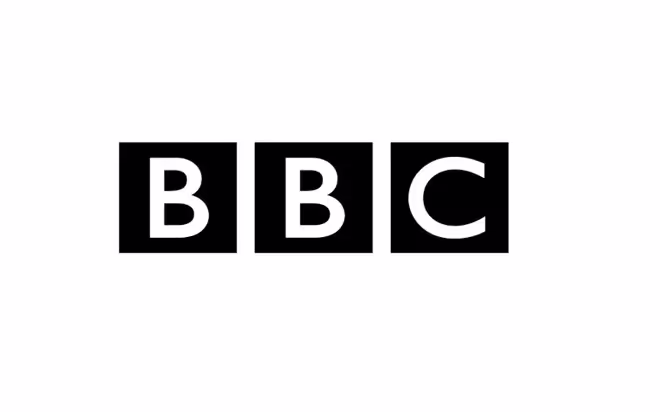
BBC Font
The British Broadcasting Corporation is a British public service broadcaster headquartered at Broadcasting House in Westminster, London. It is the world’s oldest national broadcaster and the largest broadcaster by number of employees. The BBC logo font, Gill Sans, is a humanist sans serif typeface known for its clean shapes, open counters, and strong legibility. The simple geometric letterforms used in the BBC wordmark communicate clarity, authority, and public trust.
Gill Sans
Gill Sans is a humanist sans-serif typeface designed by Eric Gill and released by the British branch of Monotype from 1928 onwards. Gill Sans is based on Edward Johnston's 1916 "Underground Alphabet", the corporate font of London Underground.